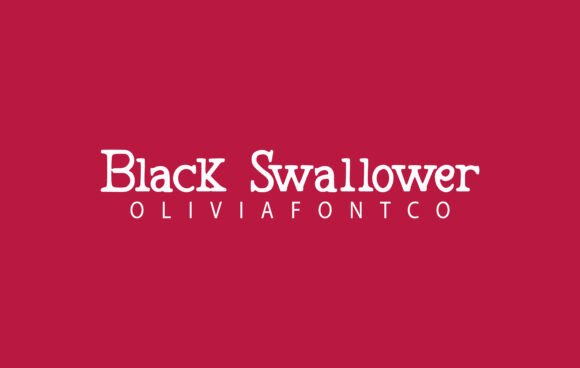
The Black Swallower Font: A Romantic Touch for Your Creative Projects
I’ll never forget the time I was working on a wedding invitation project, and my client asked for a font that was both elegant and playful. I scoured the internet, tried out dozens of fonts, but nothing seemed quite right. That was until I stumbled upon the Black Swallower font. Its romantic, handwritten charm instantly won me over, and it’s been a favorite ever since. In this article, I’ll share with you why I love this font, its features, and how to make the most of it in your designs.
• Authentic Handwritten Feel: The Black Swallower font has a genuine, hand-crafted feel that adds a touch of warmth to any design.
• Legibility: This font is easy to read, making it perfect for both title and body text.
• Romantic Touch: The subtle flair and curves give it a romantic, elegant feel that’s perfect for wedding invitations, Valentine’s Day cards, and more.
• Versatility: Use it for magazine headlines, social media graphics, branding, and more.
While the Black Swallower font is amazing, there are a few things to keep in mind:
• ⚠️ Not Suitable for Small Text: While it’s legible, the font’s elegance shines best in larger sizes. For very small text, it might not be the best choice.
• 🤔 Glyph Limitations: As with any font, there might be limitations to the glyphs and special characters available. Make sure to check the font’s capabilities before diving into your design.
Tips for OpenType Features and Glyphs
Black Swallower font comes with OpenType features that can elevate your designs. Look for:
• Stylistic Alternates: Swapping out certain letterforms for more decorative versions.
• Ligatures: Combining letters for a more fluid look.
• Glyphs: Accessing special characters and symbols to add a personal touch.
The Story Behind Black Swallower Font
The Black Swallower font was designed with love and care by a talented typographer who wanted to create a font that would capture the essence of handwritten elegance. Inspired by classic romantic scripts, this font brings a touch of sophistication to any project.
Font Name Black Swallower Font
Author OliviaFontCo
Q: What is the Black Swallower font best used for?
A: The Black Swallower font is perfect for designs that require a romantic, elegant touch, such as wedding invitations, Valentine’s Day cards, magazine headlines, and social media graphics.
Q: Is the Black Swallower font legible?
A: Yes, the Black Swallower font is highly legible, making it suitable for both title and body text.
Q: Does the Black Swallower font come with OpenType features?
A: Yes, the Black Swallower font comes with OpenType features, including stylistic alternates, ligatures, and glyphs.